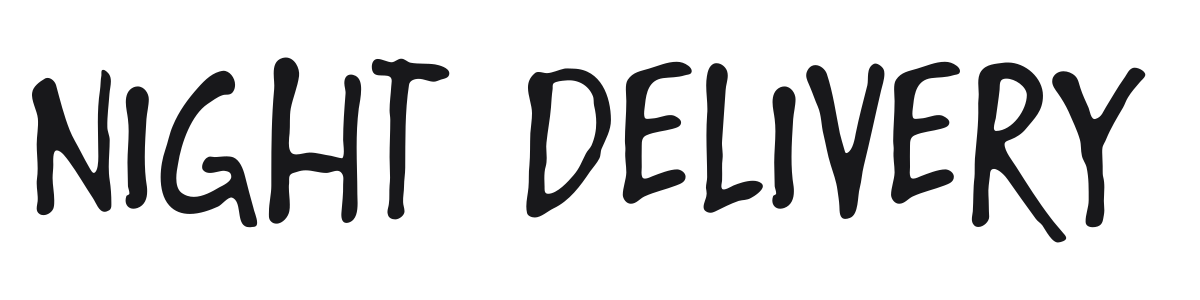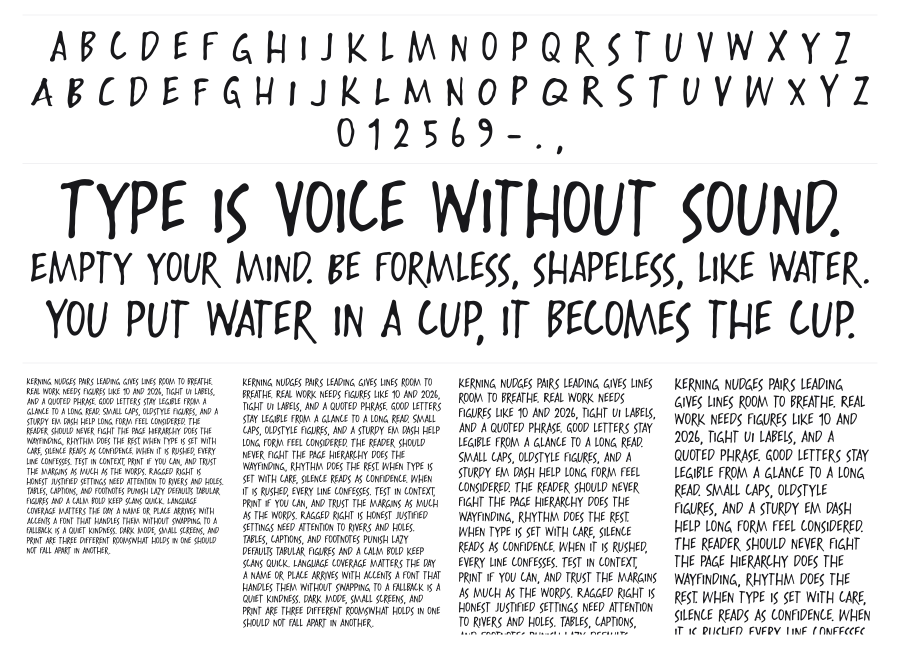
Night Delivery
Night Delivery is a bold, hand-drawn display font with thick, irregular strokes and an unpolished marker quality. Each character carries just enough variation in weight and angle to feel genuinely handwritten rather than mechanically uniform. It brings an approachable, street-level energy to posters, packaging, and casual branding.